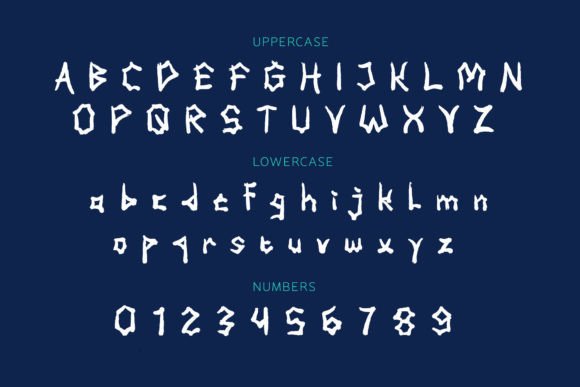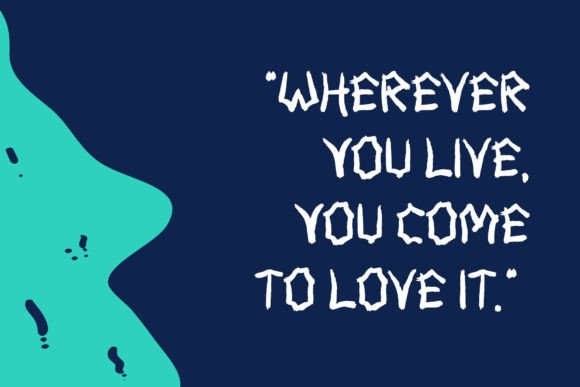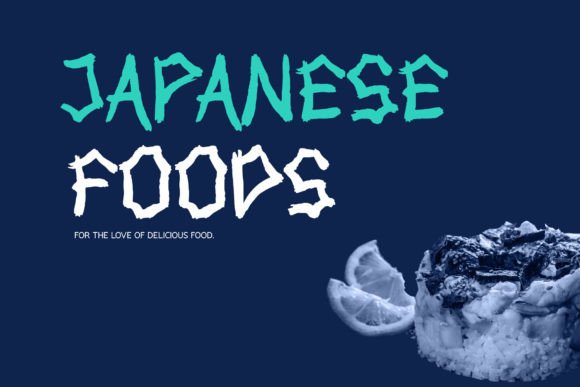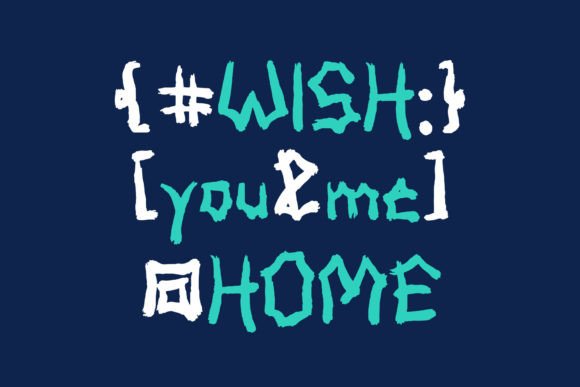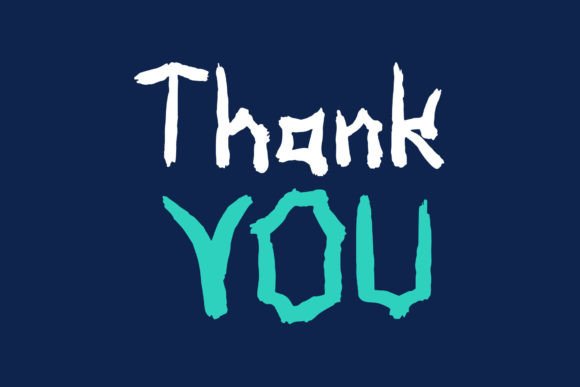
The Perfect Brush for Your Next Design Project
As designers, we’ve all been there – staring at a blank canvas, waiting for the perfect brush to bring our ideas to life. The moment of creativity is fleeting, and the right tool can make all the difference. For me, it was the discovery of the Bakugi Font that sparked a wave of inspiration. This stunning handwritten font is not just a pretty face; it’s a powerful tool designed to add a touch of Japanese elegance to your designs.
With its thick, expressive brushstrokes, the Bakugi Font is perfect for creating unique headings, titles, and logotypes that stand out from the crowd. Whether you’re working on a branding project or crafting a mockup, this versatile font is sure to elevate your designs. As a designer, you know how valuable a great font can be – it’s the difference between a good design and a great one.
Bakugi Font Key Features
- Unique Characteristics: Bakugi Font features a unique blend of traditional and modern elements, with intricate details and subtle textures that give it a distinctive look.
Bakugi Font Review
I’ve had the chance to work with the Bakugi Font, and I must say, it’s an interesting combination of classic and modern elements. ✨ The font’s unique blend of Japanese and Western influences makes it stand out in a crowded market. The subtle textures and ornate details add a level of sophistication that’s hard to find in other sans-serif fonts.
One of the things that I appreciate about Bakugi is its versatility. ✨ It works well in a variety of contexts, from body text to headings, and even as a title font. The font’s high x-height makes it easily readable, even at small sizes.
While Bakugi is a solid choice, there are a few limitations to consider: ⚠️ The font’s ornate details can make it difficult to read in low-light environments or on smaller screens. Additionally, the font’s unique style may not be to everyone’s taste, and some users may find it too busy or distracting.
Overall, I think Bakugi is a great choice for designers who want to add a touch of elegance and sophistication to their projects. With its unique blend of classic and modern elements, it’s sure to stand out in a crowded market.
Features
- Unique blend of Japanese and Western influences
- Subtle textures and ornate details
- High x-height for easy readability
- Versatile and works well in a variety of contexts
The Bakugi font is ideal for:
- Designing logos and branding materials.
- Creating eye-catching social media graphics.
- Adding a touch of elegance to business presentations.